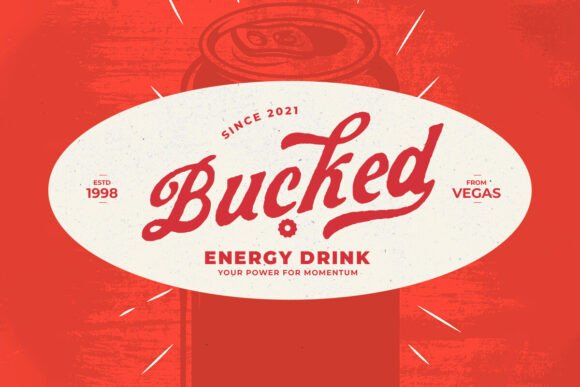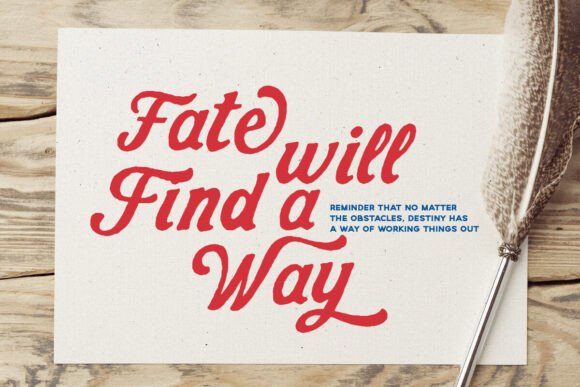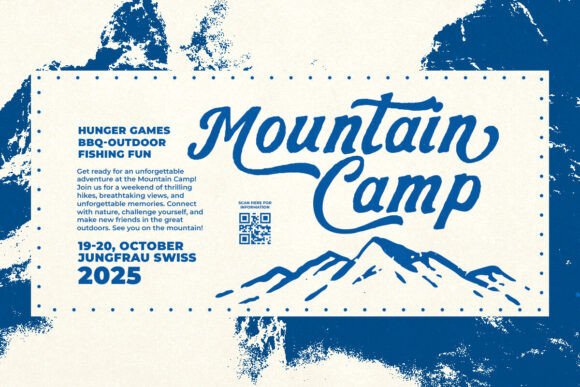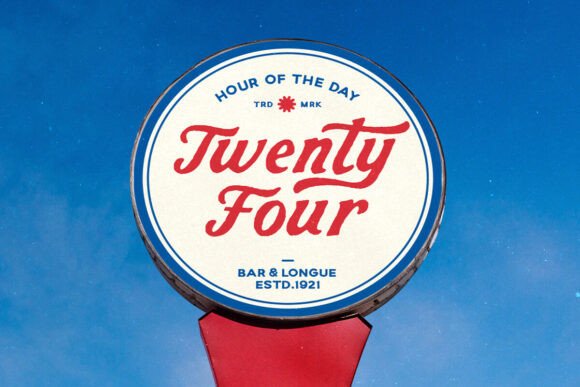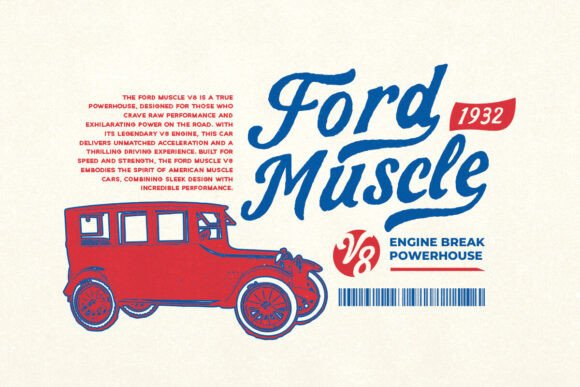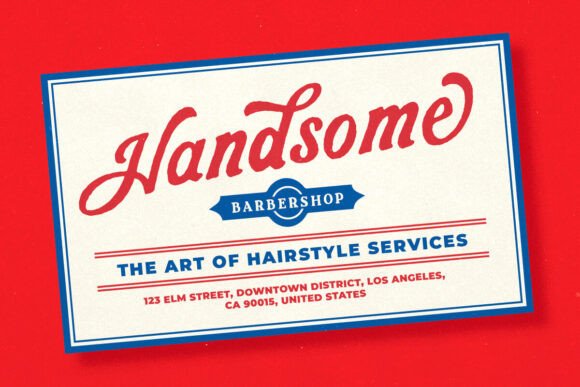
Introduction to American Route Font
The American Route is a bold, vintage-inspired script font with rugged charm and dynamic energy.
Featuring rough textures and stylish alternates, itโ€™s the perfect choice for retro logos, Americana-themed designs, signage, and apparel With its handcrafted feel and swashy flourishes, The American Route brings a nostalgic spirit to any project rooted in heritage and freedom.